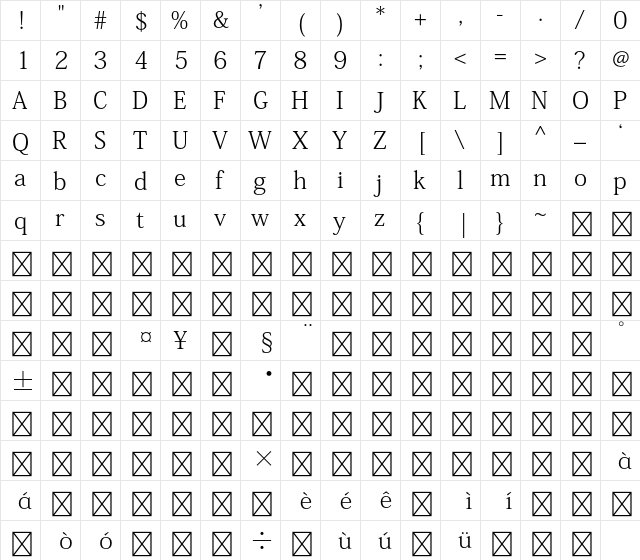
Adobe Fangsong Std R
Design Context for Adobe Fangsong Std Typeface
Adobe Fangsong Std is a composed and adaptable typeface that performs quietly and consistently across a wide range of design contexts.